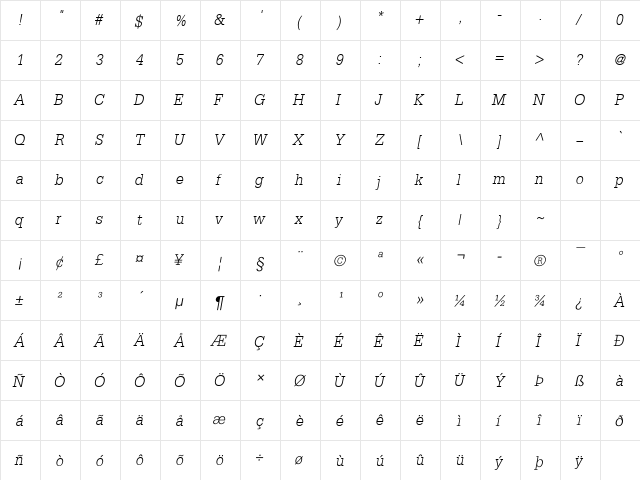
DilleniaUPC Italic
Design Context for DilleniaUPC Typeface
DilleniaUPC is a composed and adaptable typeface that performs quietly and consistently across a wide range of design contexts. Its italic angle brings a sense of urgency and motion to the letterforms.
Pro Tip: Try DilleniaUPC for annotation and caption copy alongside an upright companion — the contrast in angle creates a dynamic but ordered typographic system.